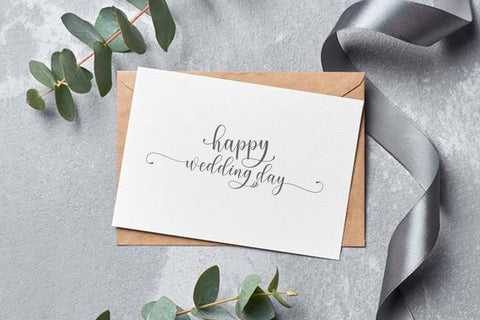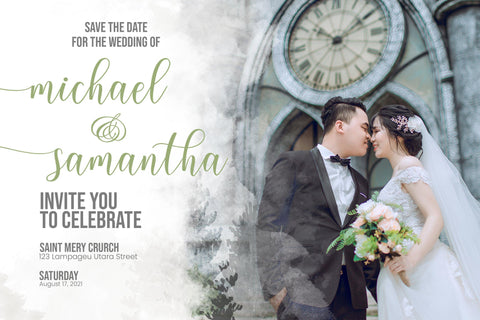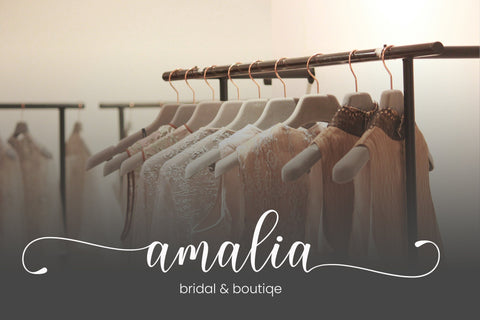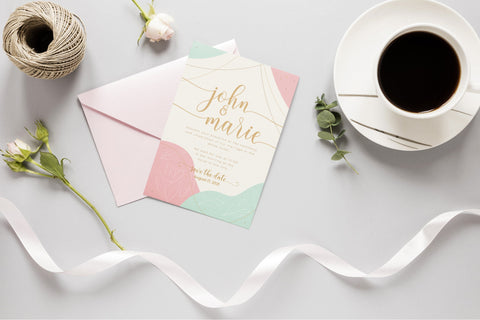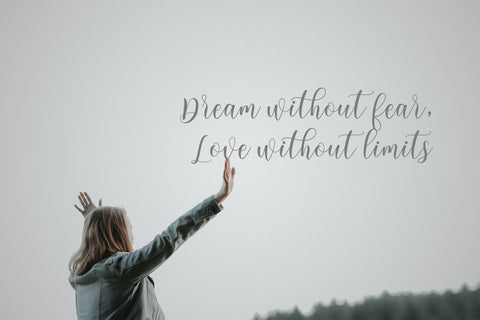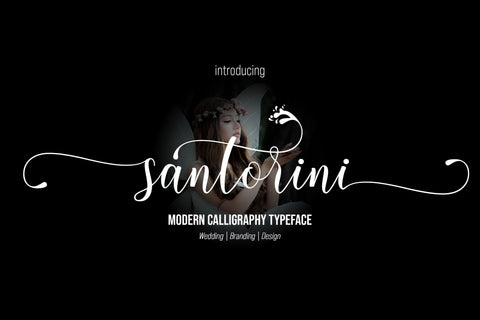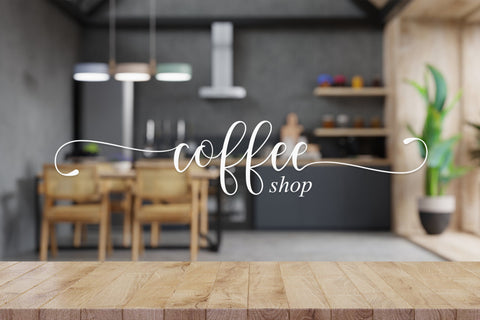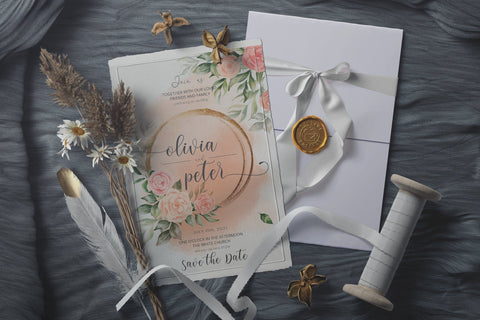
Santorini Script is a modern calligraphy font with the current handwriting style, this font is perfect for branding, wedding invites, magazines, mugs, business cards, quotes, posters, and more, you can try first if you want to buy this font.
Santorini Script is equipped with 299 glyphs. and by having many of these glyphs there will be able to choose the letters according to your likes, lots of variations and options for each letter, so you can customize on your design choices.